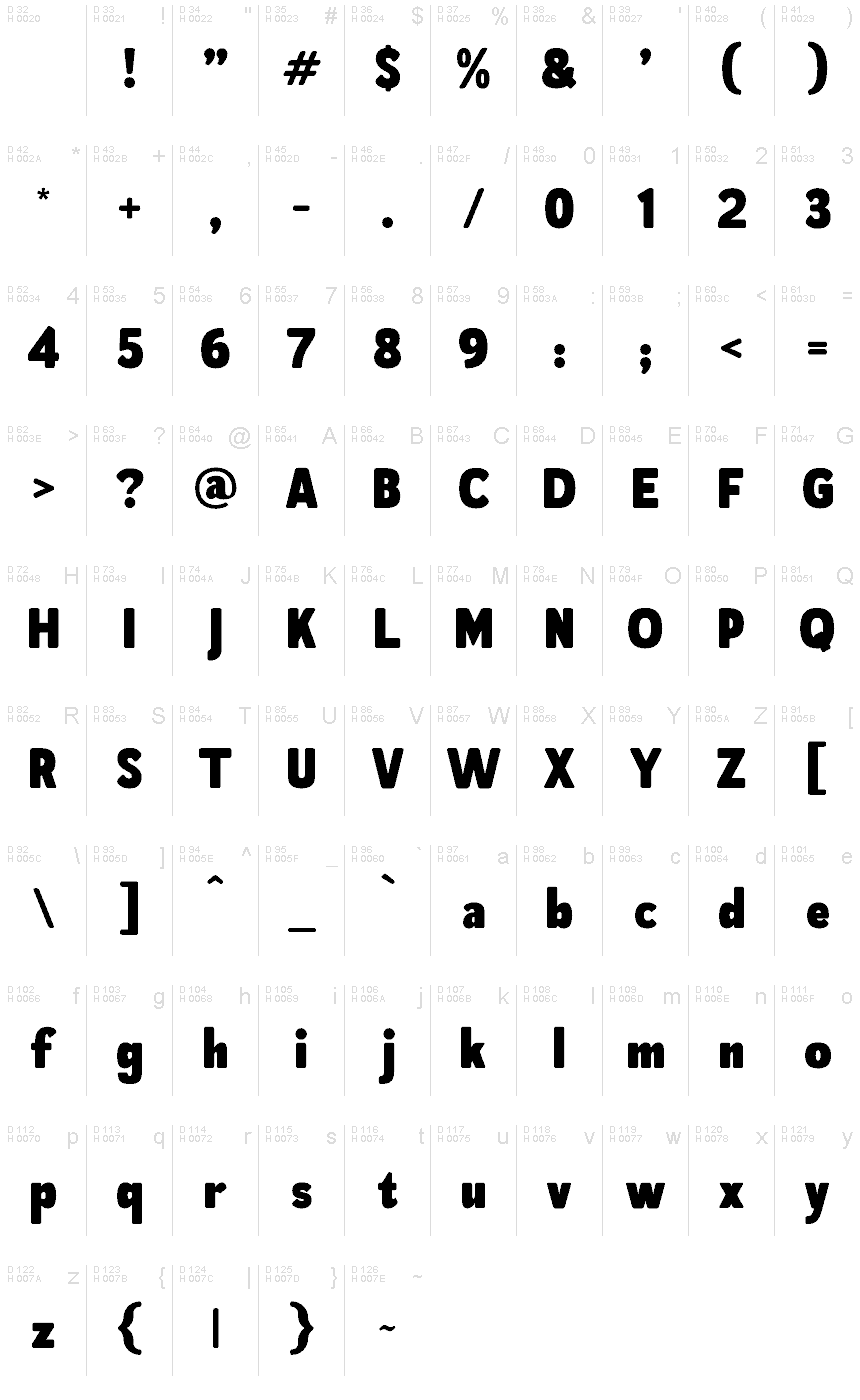
Wobblezz
Wobblezz font by Storytype Studio is a bold sans serif typeface featuring rounded edges that give it an approachable vibe. Its retro-inspired lettering and casual quirky design bring a sense of fun to the presented text. And while linearity and strict organization are important design principles, artists have room to play around and bend the rules using our original font.
Books for kids and young adults, comics, video game covers, cartoons, and other similar products will be more eye-catching with this addition as well as online ads. Be clear when presenting apps platforms or use the free Wobblezz font for posters or branding projects.